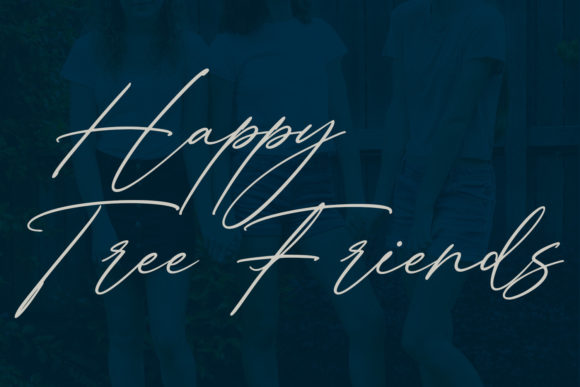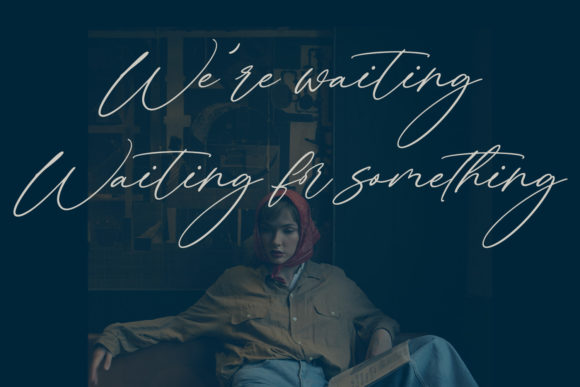
Romantic Purple Font
db-ku.com - Script & Handwritten -- Romantic Purple is an expressive signature script font. It has tall extra light contrast strokes, fun characters with a bit of ligatures and alternates. Romantic Purple looks stunning on wedding invitations, thank you cards, quotes, greeting cards, logos, business cards and every other design which needs a handwritten touch.